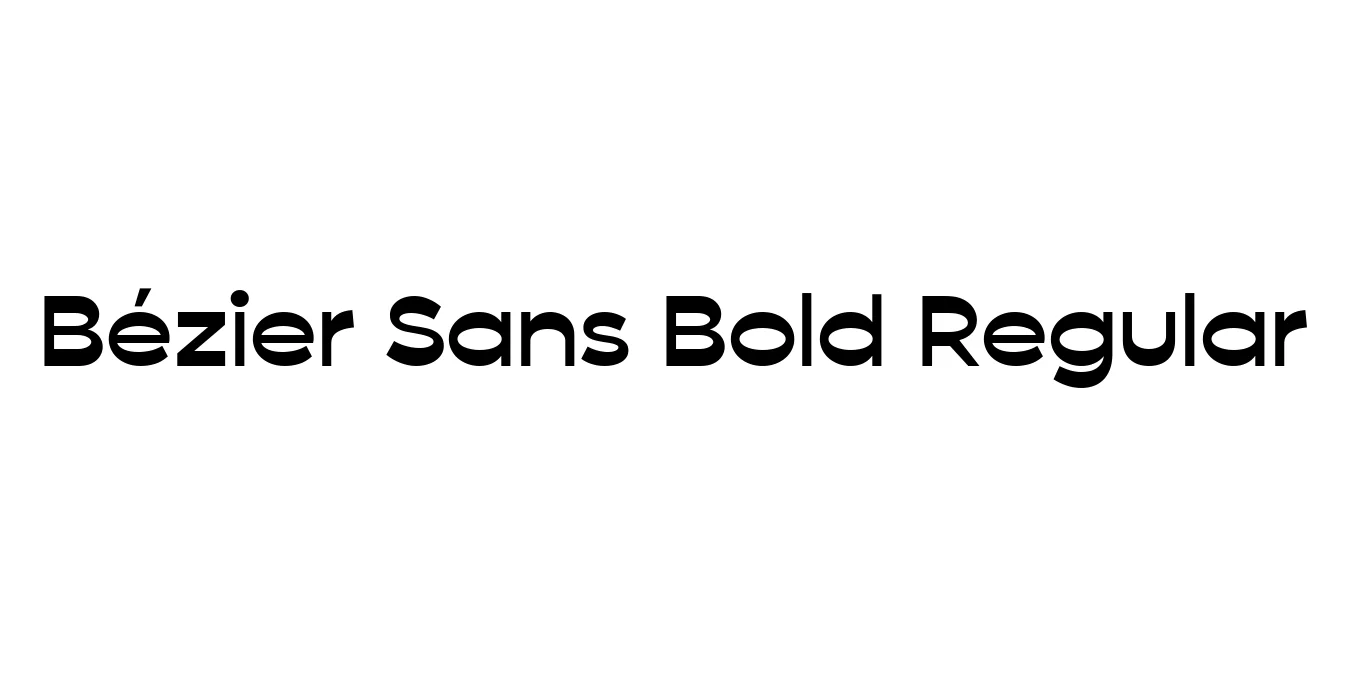
Bézier Sans Bold Regular
Designed by Pierre Pane-Farré
Bézier Sans Bold Regular is a contemporary typeface designed by Pierre Pane-Farré, characterized by its meticulous attention to the mathematical curves that define digital typography. The typeface is part of a broader exploration into the relationship between the Bézier spline and modern sans-serif aesthetics, blending geometric precision with subtle organic nuances that ensure legibility even at high weights.
This bold iteration was specifically crafted to provide a strong visual presence in display settings. While it maintains a clean, minimalist structure, the subtle tapering and balanced proportions give it a distinct personality that stands out from more generic neo-grotesque fonts. It represents a perfect harmony between technical engineering and artistic expression in type design.
Bézier Sans Bold Regular Best Uses
Perfect for high-impact titles and large-scale posters.
Ideal for creating strong, memorable logotypes and identity systems.
Excellent for hero sections and UI elements that require clarity.
Effective for grabbing attention in print and digital marketing materials.